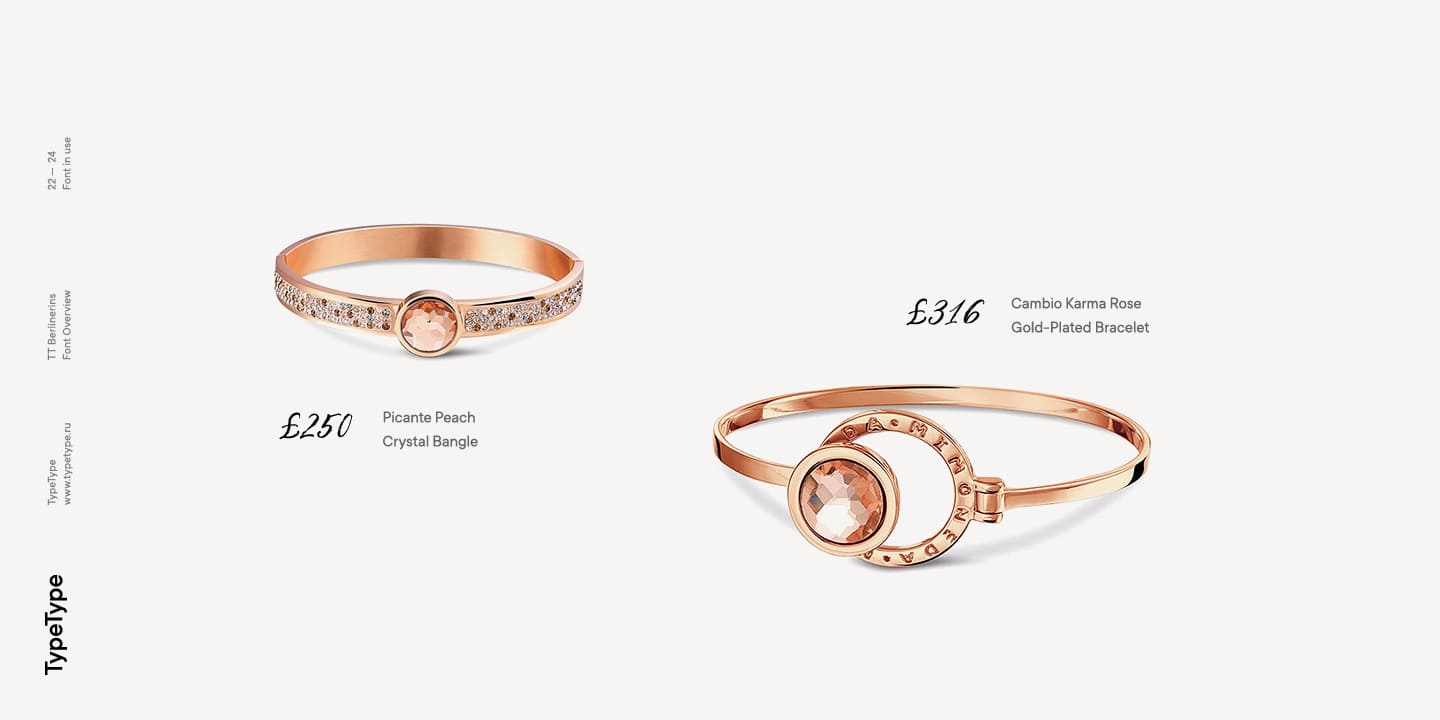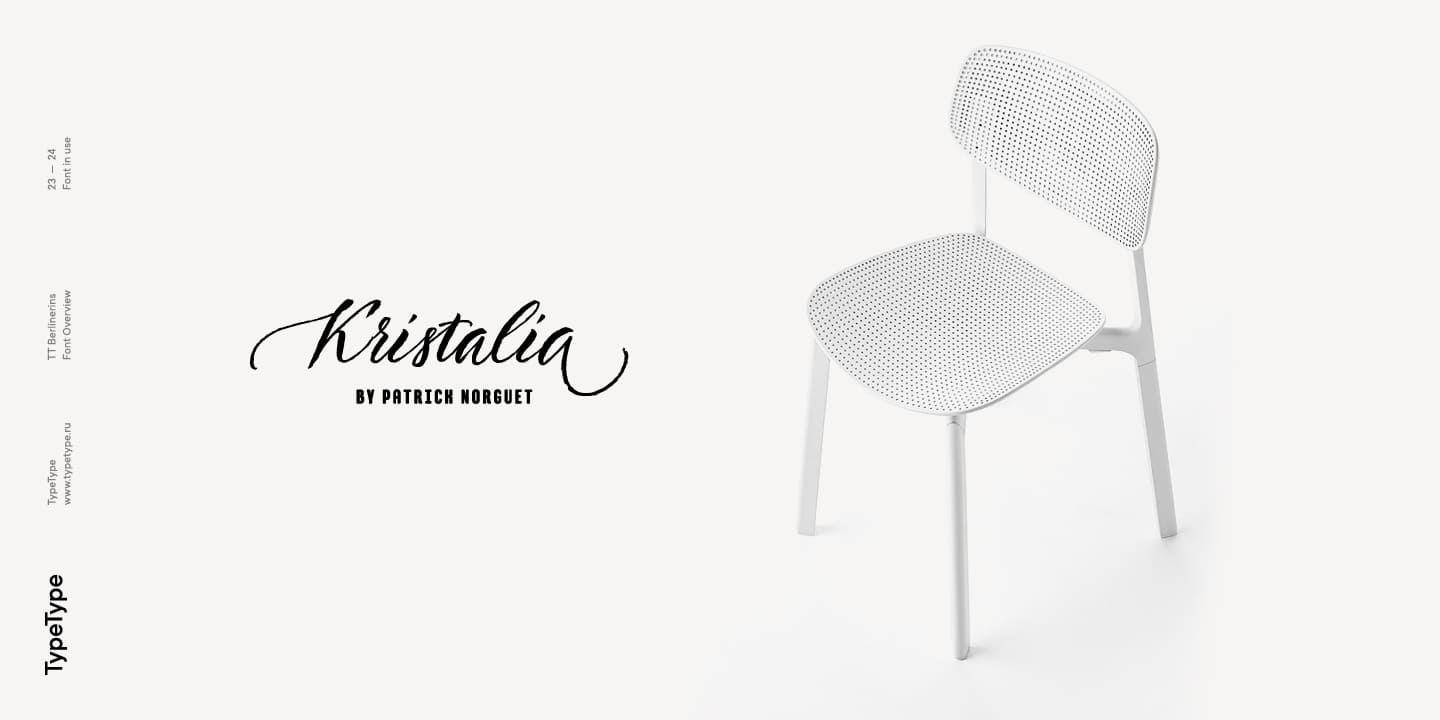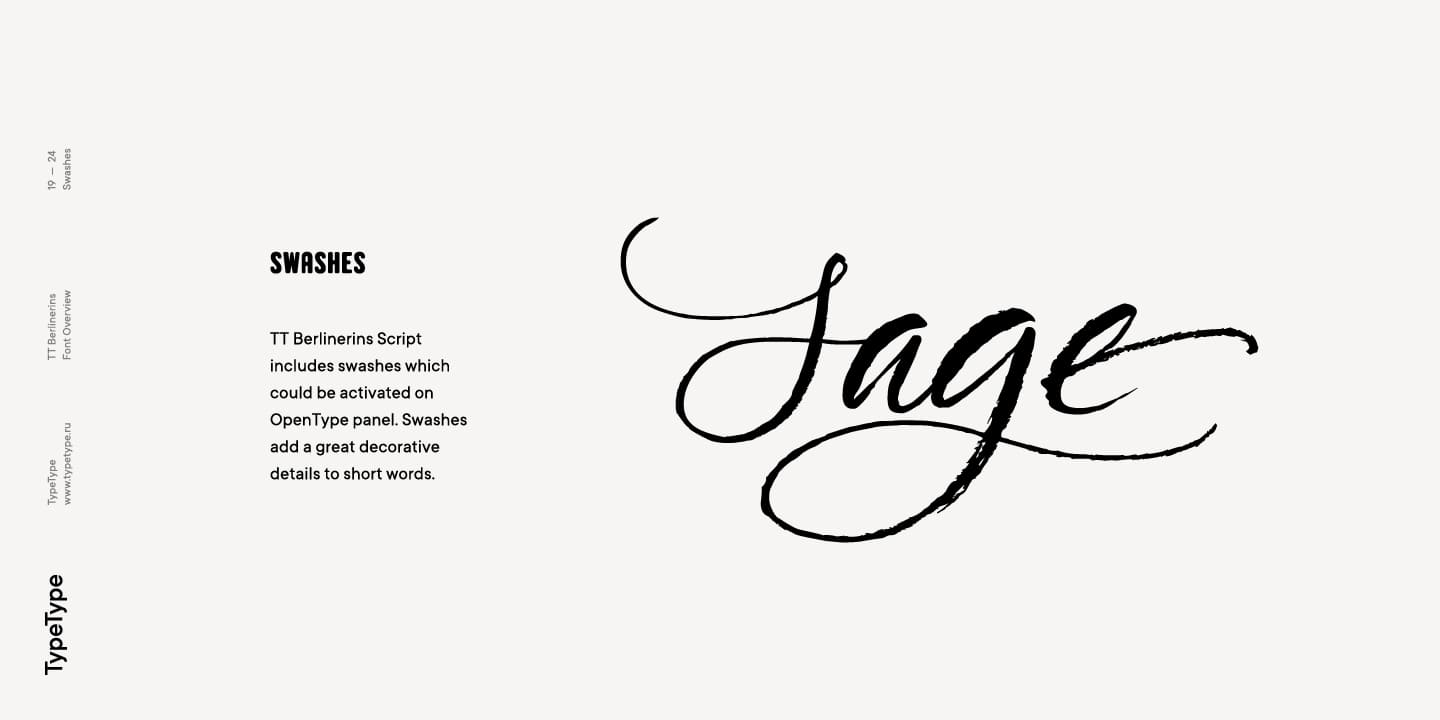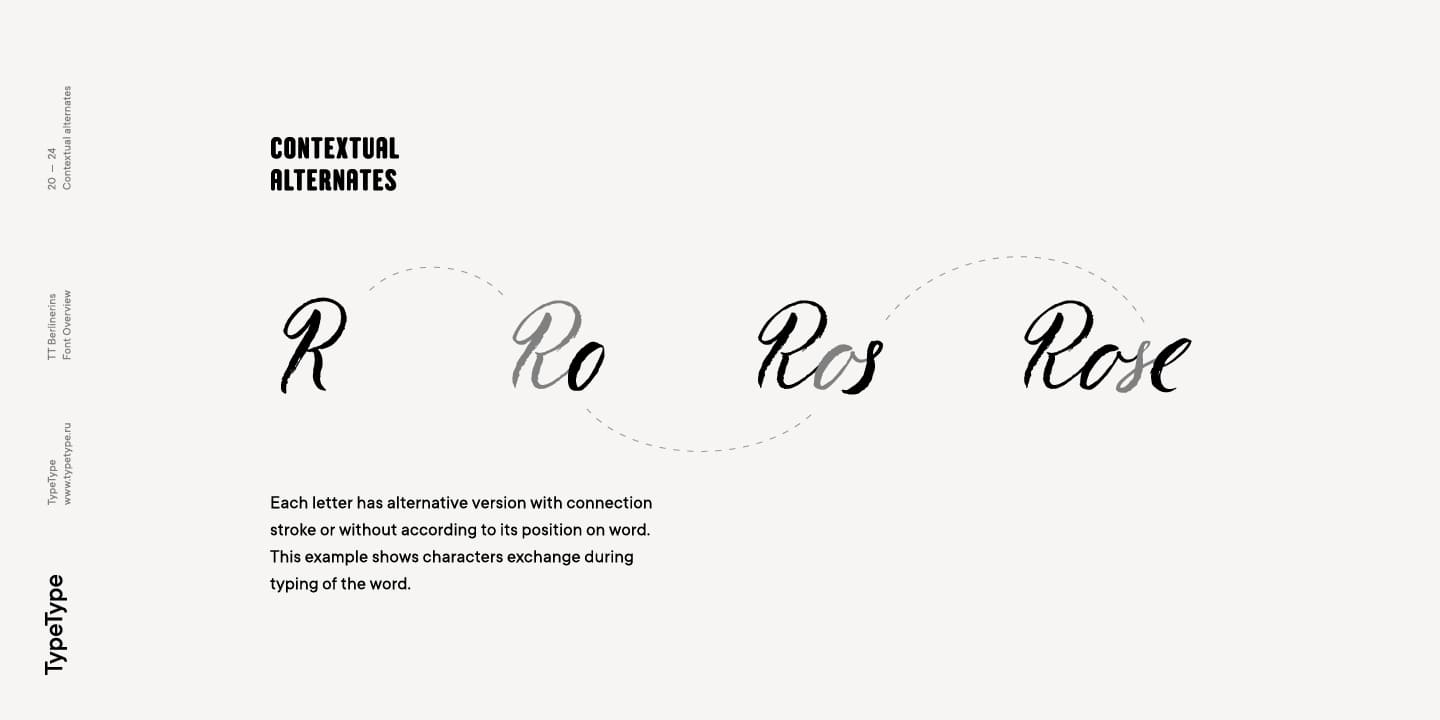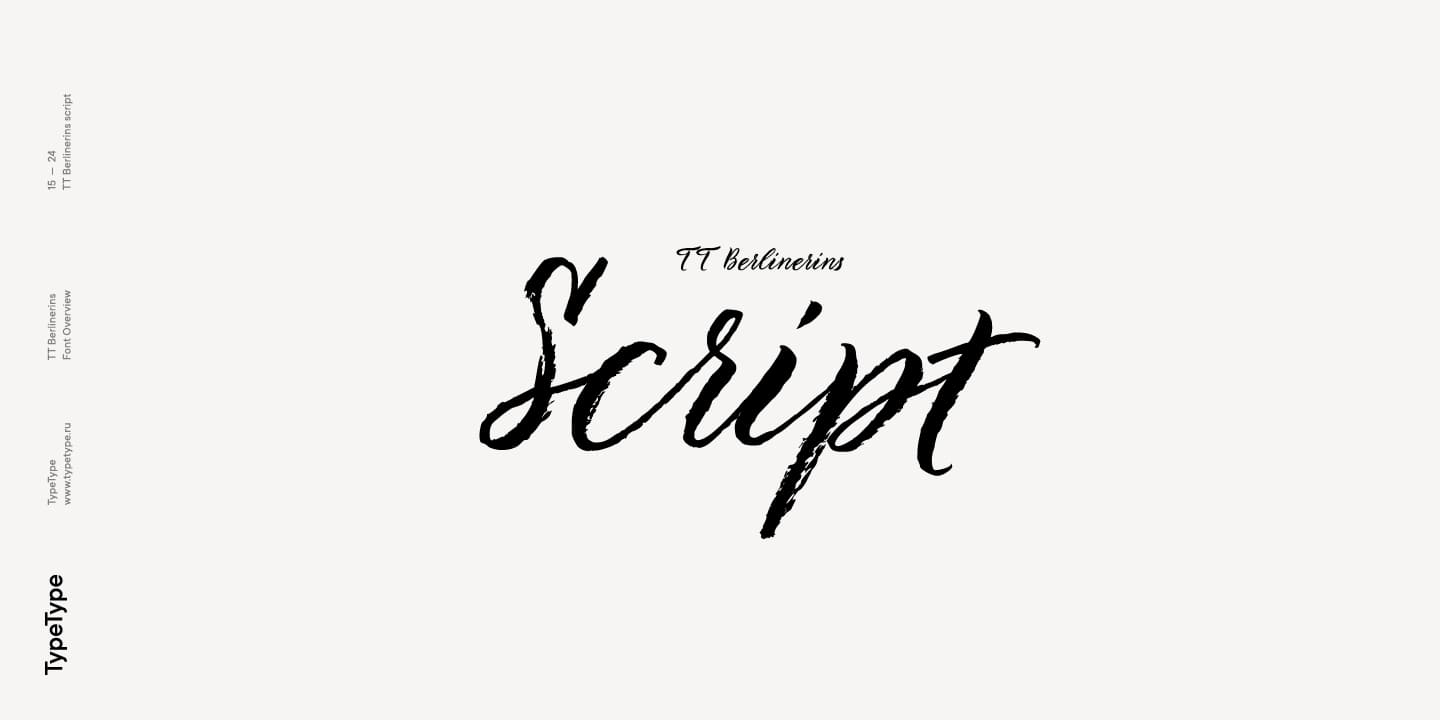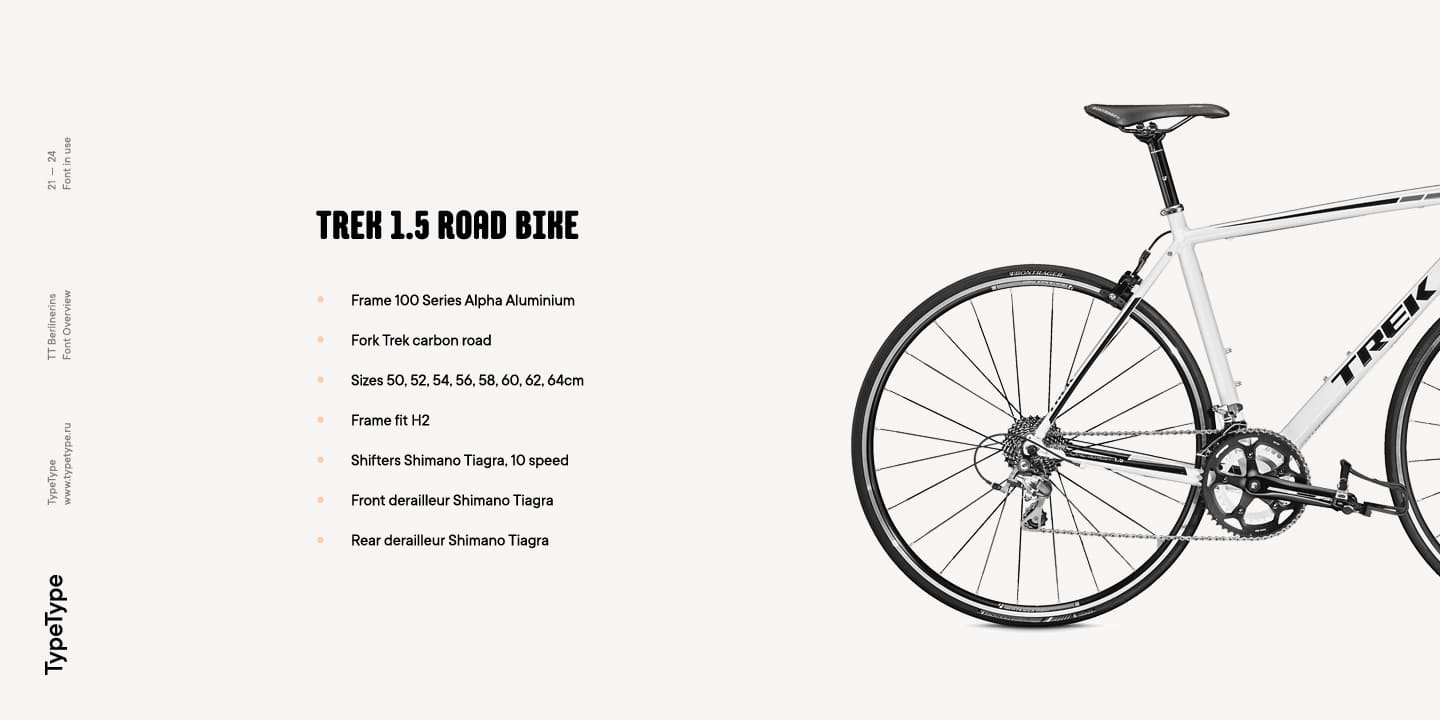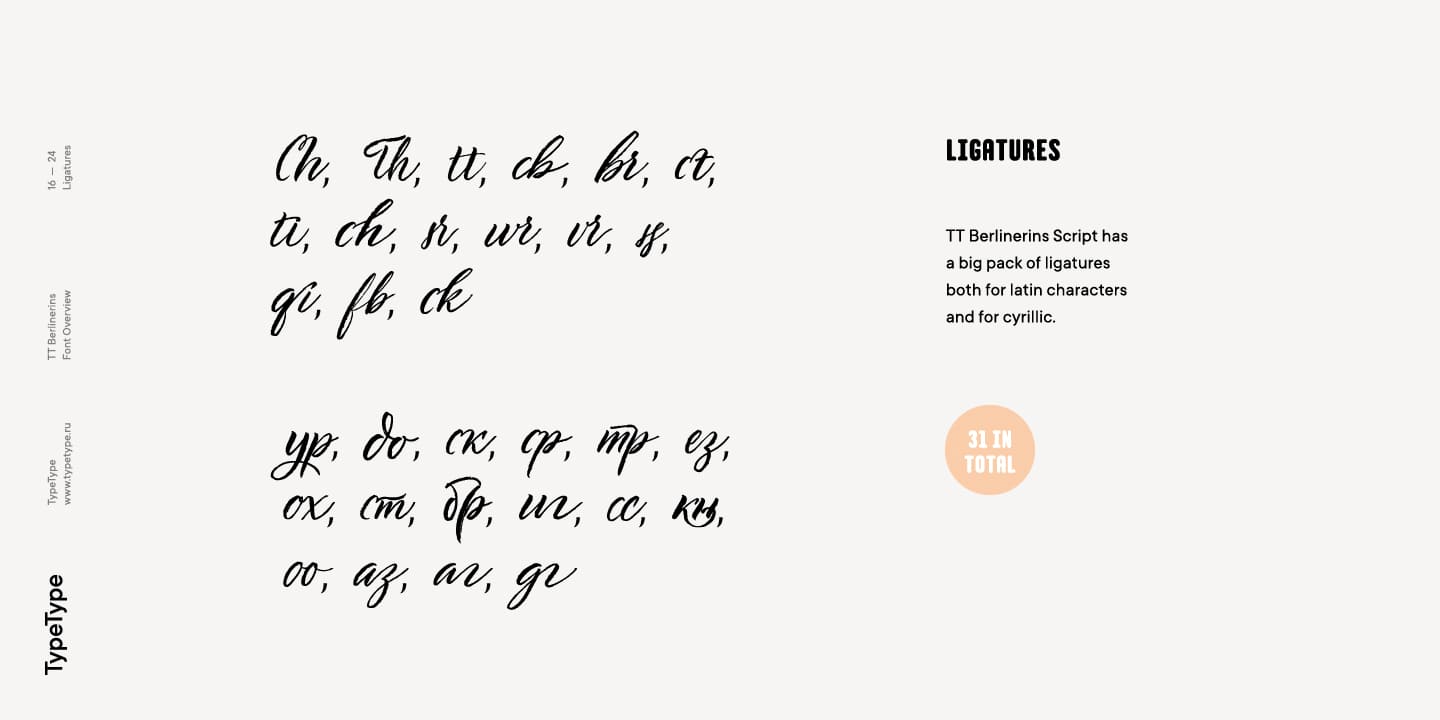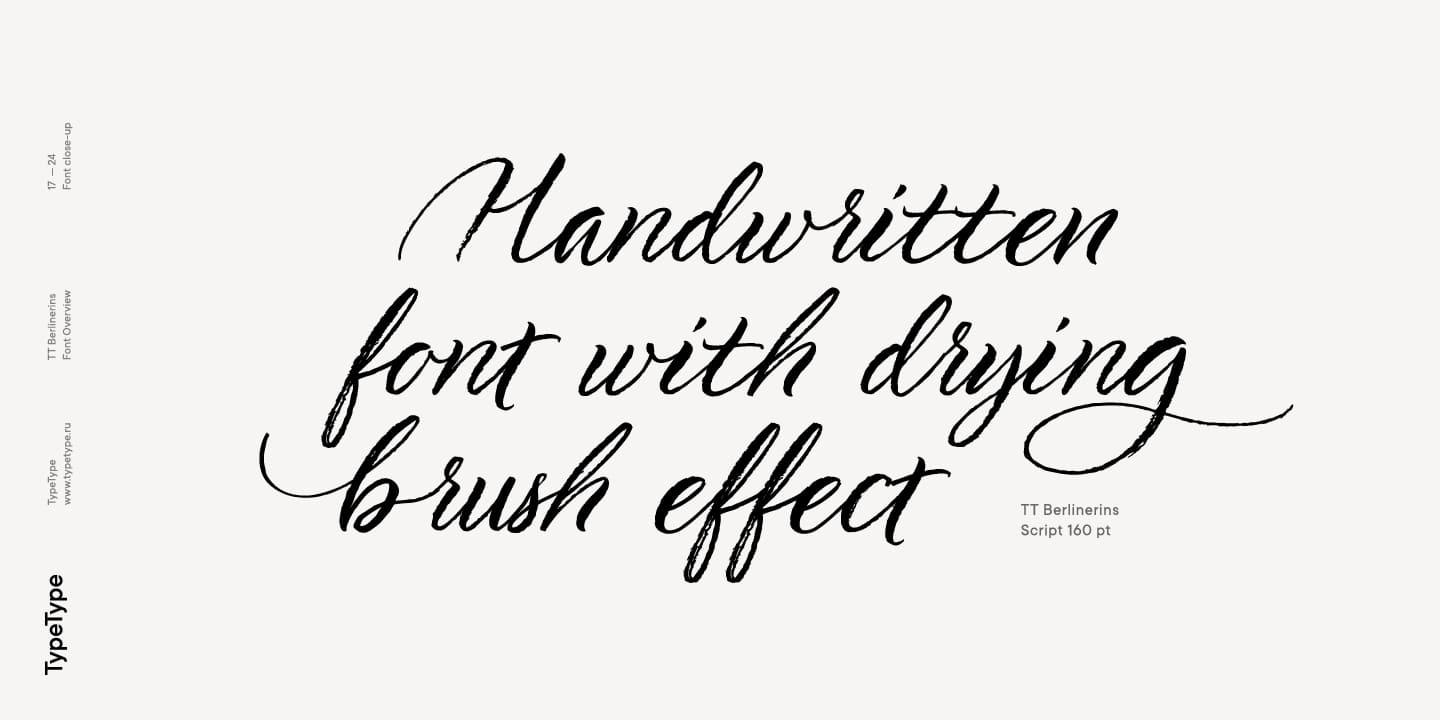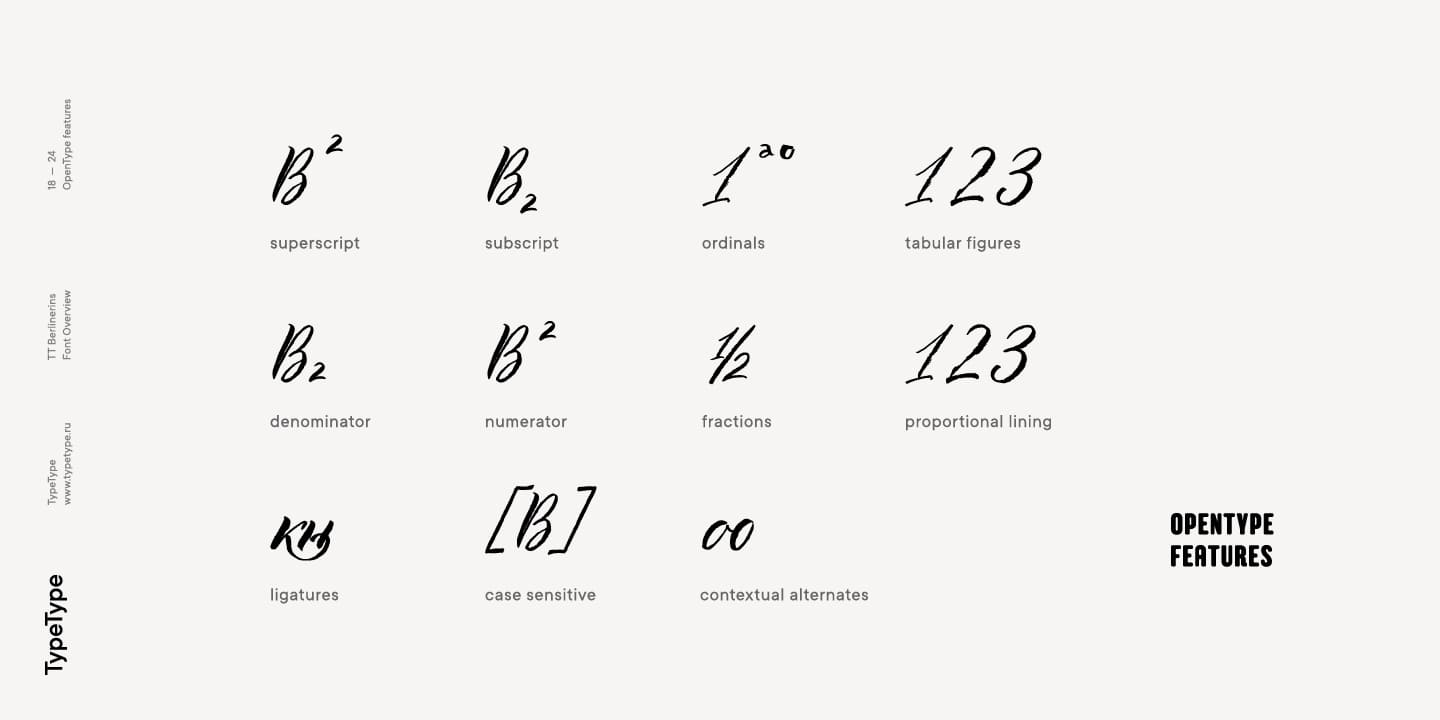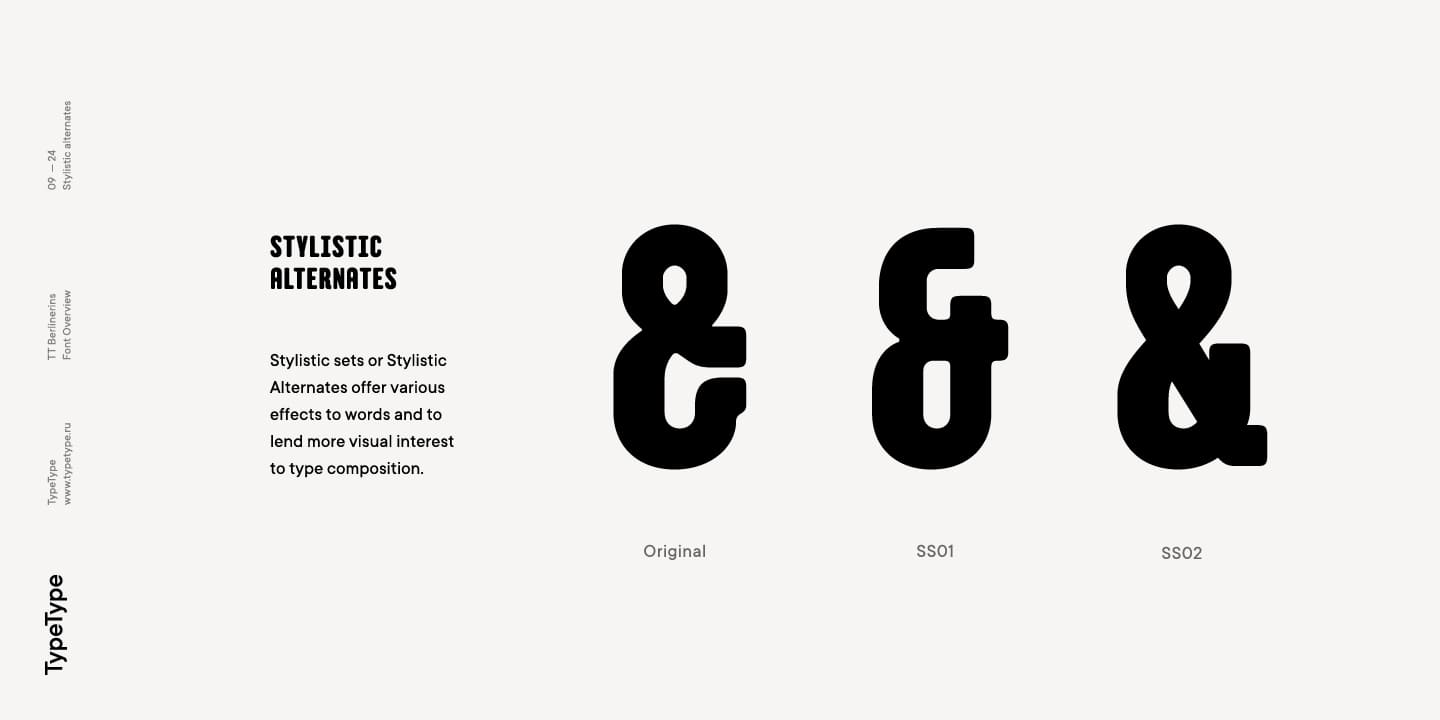
TT Berlinerins Family (2 fonts)
The idea of this project emerged in the beginning of 2016 when we met Evgenia Pestova, a calligrapher from Berlin, who shared the contemporary perspective on calligraphy and the city impressions with us. The wood-type grotesque appeared later, after our another colleague had visited Berlin and told us her fascinating story about the things she had seen. The city is full of contrasts — it is very modern and very vintage at the same time. The photographs and the impressions from the trip have also become the basis of our project. That is how we've added a little of old Berlin's roughness and inhomogeneity.
TT Berlinerins Script contains 998 glyphs, including more than 240 swashes for which we've written a special feature. We've also drawn a large number of ligatures for TT Berlinerins Script and integrated wide support of OpenType features: ordn, frac, case, sups, sinf, numr, dnom, tnum, pnum, calt, liga. TT Berlinerins Grotesk consists of uppercase letters, includes a set of unusual ligatures and wide support of OpenType features: ordn, frac, sups, sinf, numr, dnom, tnum, pnum, liga, salt and two stylistic sets ss01, ss02 for the ampersand.